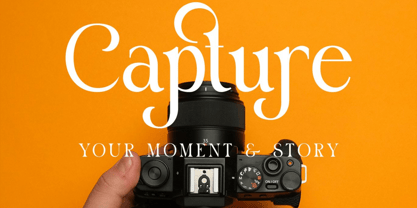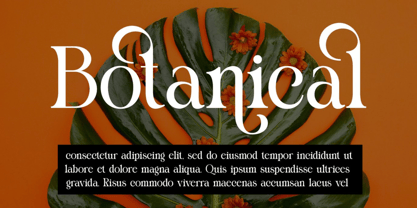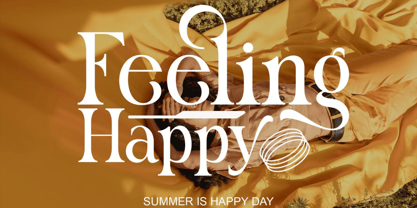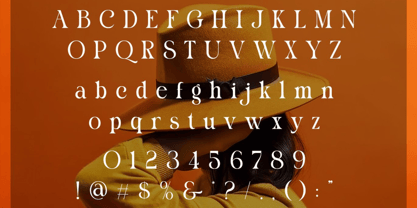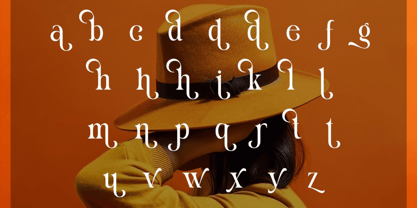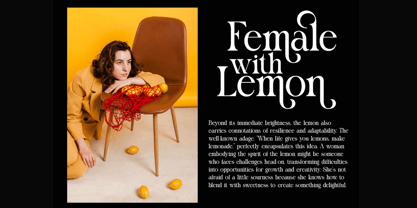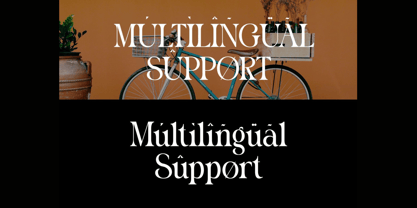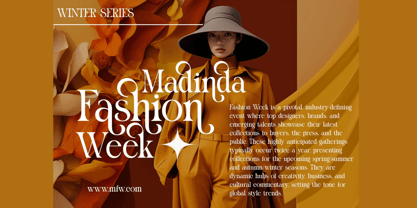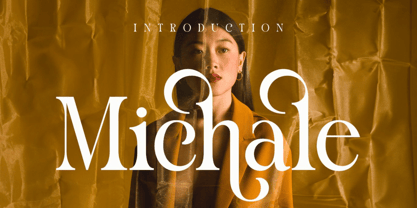
Mliach
Mliach is a modern serif typeface that exudes femininity, elegance, and refined beauty. Inspired by the delicate charm of fresh blooms and timeless editorial design, Mliach offers graceful ligatures, soft curves, and a confident presence that adds sophistication to every project.
With its bold yet subtle letterforms, Mliach is the perfect choice for upscale branding, floral-themed visuals, fashion campaigns, magazine layouts, wedding invitations, and luxury packaging. Each character is crafted to convey poise and charm while maintaining high readability.
✦ Font Features:
• Elegant serif style with modern ligatures
• Uppercase & lowercase characters
• Standard glyphs & numerals
• Multilingual support with international accents
✦ Perfect For:
• Floral & feminine branding
• Luxury fashion and editorial design
• Wedding stationery and invitations
• High-end packaging and logos
• Social media graphics with a refined aesthetic
Mliach brings a breath of elegance and timeless beauty to any creative project. Let this graceful typeface elevate your work with effortless charm.